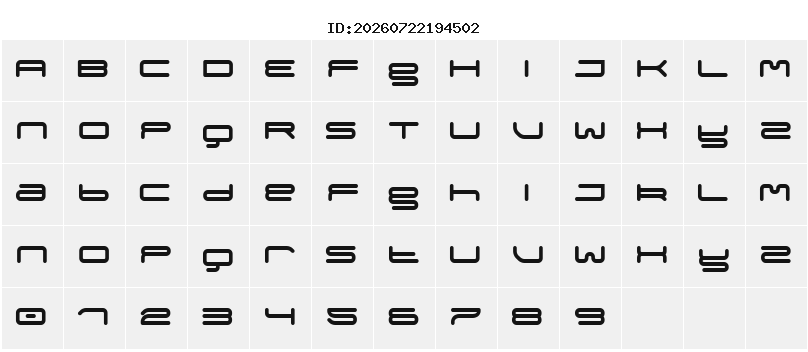
mega Preview
About mega.ttf
mega.ttf is a modern, elegant sans-serif font designed for ultimate readability and visual harmony. Perfect for branding, headlines, web design, and print materials.